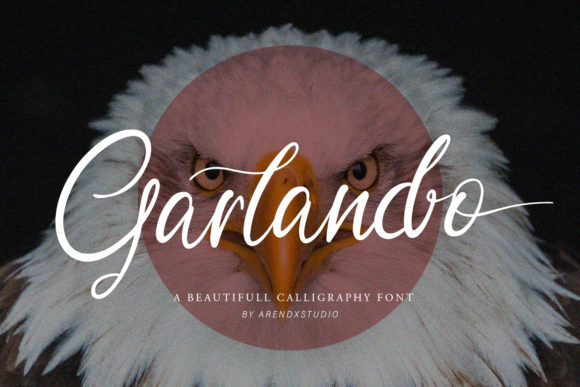
Discover the Elegance of Garlando Font: A Stunning Script Font
Are you a designer or crafter looking for a font that exudes elegance and sophistication? Look no further than the Garlando Font. This beautiful script font is an homage to the art of calligraphy, and its distinct characters are sure to make your designs stand out. In this article, we’ll take a closer look at the features of Garlando Font and why it’s a must-have for anyone looking to add a touch of luxury to their work.
What is Garlando Font?
Garlando Font is a script font that is inspired by the classic calligraphy styles of the past. Its elegant and flowing lines are reminiscent of traditional calligraphy, but with a modern twist that makes it perfect for use in a variety of design projects. Whether you’re creating a logo, a wedding invitation, or a branding campaign, Garlando Font is sure to impress.
Distinct Features of Garlando Font
So, what sets Garlando Font apart from other script fonts on the market? Here are just a few of its distinct features:
- Unique Character Set: Garlando Font features a unique character set that includes a range of letters, numbers, and punctuation marks. Each character is carefully crafted to ensure that it looks elegant and sophisticated.
- Flowing Lines: The lines of Garlando Font are smooth and flowing, giving it a sense of movement and energy. This makes it perfect for use in designs where you want to create a sense of drama and flair.
- Classic Inspiration: Garlando Font is inspired by traditional calligraphy styles, but with a modern twist that makes it perfect for use in contemporary designs.
Why Use Garlando Font?
So, why should you use Garlando Font in your designs? Here are just a few reasons:
- Adds Elegance: Garlando Font adds a touch of elegance and sophistication to any design. Its classic inspiration and flowing lines make it perfect for use in designs where you want to create a sense of luxury.
- Versatile: Garlando Font is versatile and can be used in a variety of design projects, from logos and branding campaigns to wedding invitations and more.
- Easy to Read: Despite its elegant and flowing lines, Garlando Font is easy to read, making it perfect for use in designs where you need to communicate a message.
How to Use Garlando Font
Using Garlando Font in your designs is easy. Here are a few tips to get you started:
- Pair it with a Sans Serif Font: Pair Garlando Font with a sans serif font to create a beautiful contrast between the elegant script font and the clean lines of the sans serif font.
- Use it for Headings: Use Garlando Font for headings and titles to add a touch of elegance and sophistication to your designs.
- Experiment with Colors: Experiment with different colors to find the perfect combination that complements the elegant lines of Garlando Font.